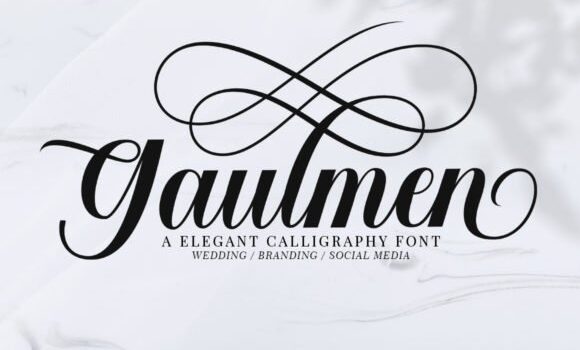
gaulmen
Gaulmen Font – Free Download Introduction to Gaulmen Font Gaulmen feels fresh and playful and features gorgeous swashes. 📸 Preview Gallery 6 images 📌 Product Name Gaulmen Font 👤 Author supotype 📂 Category Explore ⬇️ Download Gaulmen Font FREE Free